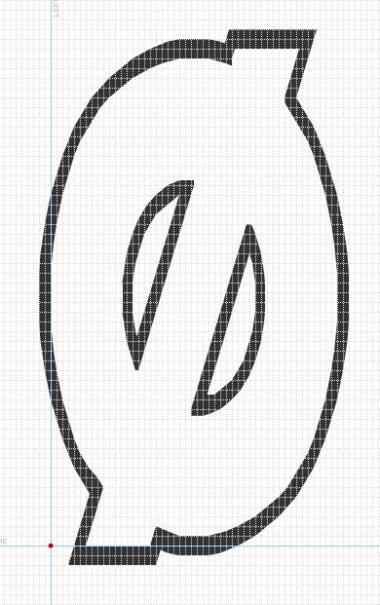
• Something that I made. Part of the Roto Family.
Currently supports:
English, Jamaican, Irish, Dutch, German, Norwegian, Swedish, Icelandic, Finnish, Polish, Czech, Slovak, Sami (Northern), Hungarian, Spanish, Portuguese, French, Esperanto
Beautifully formed and proportioned.
These will help you to achieve smoother curves ...
Lovely shapes, and the 'rough curves' only show at larger sizes ;) which many people don't use when writing informative texts ...
but yes, experiment with those sets of bricks in the fonts that p2p mentioned. They could be useful for many future glyphs.
Nice! Maybe you could extend the cross stroke of the t a little.
Use overshoot, maybe? http://en.wikipedia.org/wiki/Overshoot_(typography)
Is the Ø okay? Because I think it kinds of looks like a zero with a stroke.
Beautiful simple work with curves.
This is coming along really well - congratulations on the TP.
I would do the O with stroke more like this ...
@p2pnut: Your suggestion is good, but I've tried that, and that didn't work out, as each stroke of my font is only two blocks in width, and I tried to make composites, but it didn't work.
Try this composite tool. All Composites In My Bricks It's the best original and still the best tool to use. :)
I've already got it. But those composites don't work with that Ø.
About the Ø: don't worry too much about it. As a Dane, I can tell you it is perfectly legible as it is :)
Great design!
May I suggest something? I would push the terminal of the a slightly to the right. And the t and f look a bit smaller than the rest of the lower case. You could consider pushing the arms of both a bit higher.
Pretty sans serif. Lots of work, endless stream of improvements, apparently. You must be a perfectionist, what is very proper for a typeface designer. 10/10
Great design; it's very consistent! I can't wait to see the rest of the family.
Wow impressive work, Bravo
love this hair font